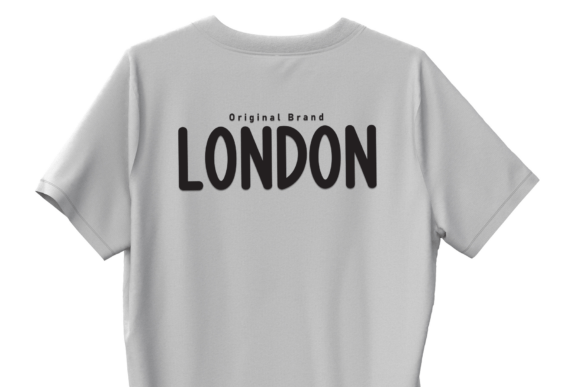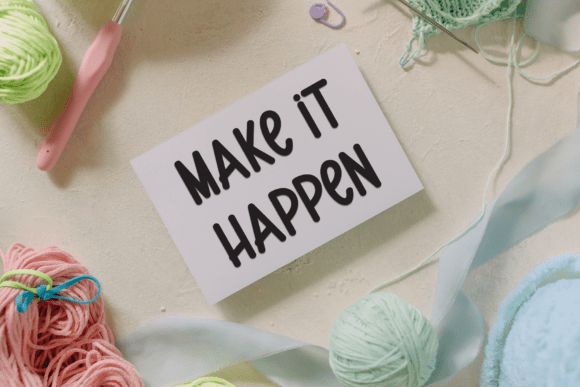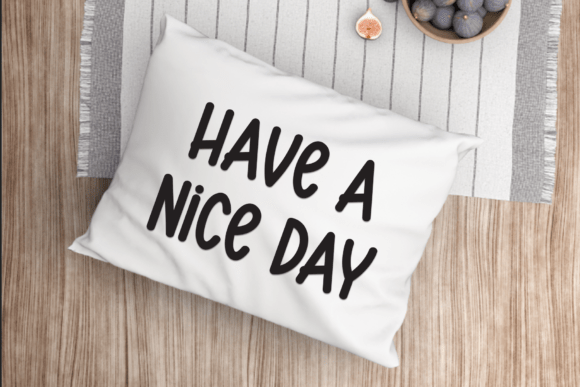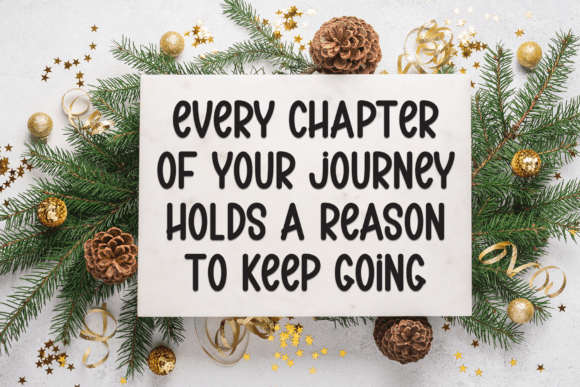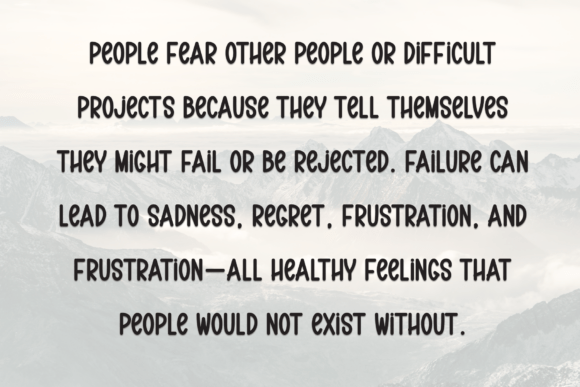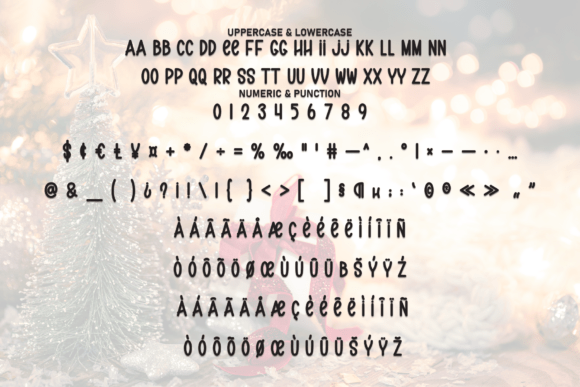
Get Ready to Fall in Love with the Christmas Wonderful Font
As designers, we’ve all been there – staring at a blank page, trying to find the perfect font to bring our creations to life. It’s that moment of inspiration, when the right typeface can make all the difference. And that’s exactly what the Christmas Wonderful Font is designed to do – add a dash of warmth and unique character to your designs.
This beautiful, handcrafted display font is perfect for weddings, invitations, stationery, and design portfolios. Its lively and playful style is sure to captivate every eye and win every heart. Whether you’re a seasoned designer or just starting out, the Christmas Wonderful Font is a valuable addition to your toolkit. It’s the perfect way to add a touch of joy and comfort to your work, and make it truly unforgettable.
Christmas Wonderful Font Key Features
- Unique Characteristics: This font features intricate, hand-drawn designs with a mix of traditional and modern elements, perfect for creating a festive atmosphere.
- Font Styles: Includes 6 different font styles: Regular, Italic, Bold, Bold Italic, Outline, and Shadow, providing versatility for various design applications.
Designer Review: Christmas Wonderful Font
Overall, I think the “Christmas Wonderful Font” is a delightful addition to any holiday-themed project. ✨ The font’s playful, handwritten feel immediately evokes a sense of festive cheer, making it perfect for greeting cards, social media posts, and other seasonal content.
The font’s versatility is another major selling point. ✨ It comes in a range of weights and styles, from bold and bright to delicate and cursive. This makes it easy to customize and adapt to different design contexts.
Here are some specific things that work well:
- Playful, handwritten feel
- Range of weights and styles
- Perfect for holiday-themed projects
That being said, there are some limitations to consider:
- May not be suitable for formal or professional designs
- Some characters may not display consistently across different devices or browsers
⚠️ While these limitations are worth noting, I still think the “Christmas Wonderful Font” is a great choice for many designers. Its unique charm and versatility make it a valuable addition to any holiday-themed project.
Tips for Getting the Most Out of the Christmas Wonderful Font
For the best results, use the Christmas Wonderful Font in conjunction with other festive design elements, such as holly, snowflakes, or Christmas trees. Experiment with different font sizes, colors, and effects to create a unique and eye-catching design.
The Christmas Wonderful Font is ideal for creating festive holiday designs, such as:
- Holiday cards and invitations
- Christmas party decorations and signage
- Gift tags and wrapping paper
- Winter-themed social media graphics